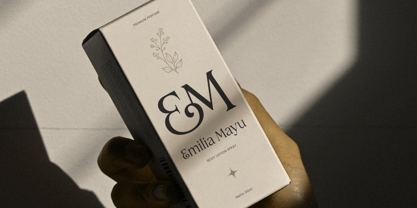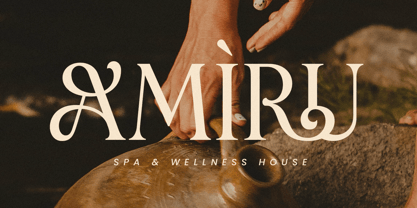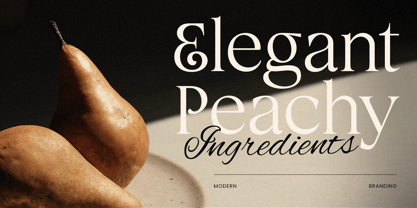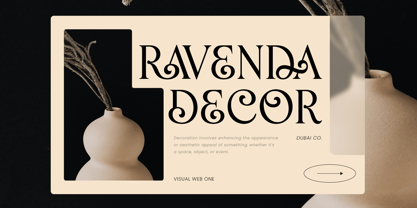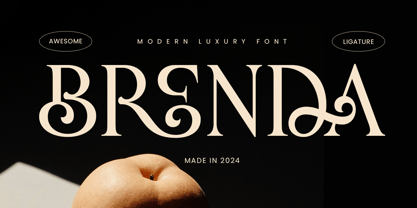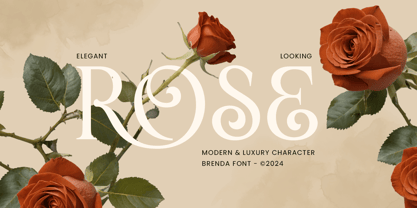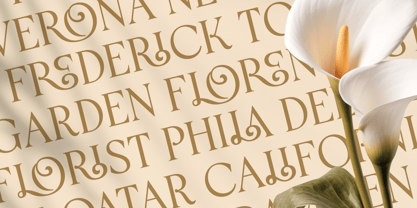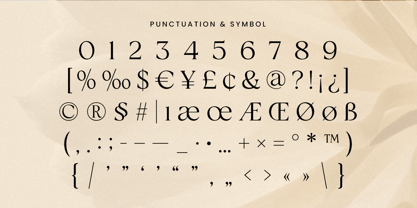
Brenda - Modern Luxury Font
Brenda is a modern luxury font crafted for those who seek elegance and sophistication in their design projects. Its clean lines and refined style make it an ideal choice for high-end branding, from fashion labels to luxury goods. Brenda brings a sense of exclusivity and class, elevating any design it graces with a polished, upscale feel.
Drawing inspiration from modern luxury aesthetics, Brenda’s balanced forms and subtle curves add a touch of timeless beauty. Whether used in logos, magazines, or upscale product packaging, this font seamlessly blends with contemporary and classic design elements, making it versatile for various projects that demand a premium look.
Unlock a world of refined branding possibilities with Brenda, a font that speaks to a luxurious and modern audience. Its stylish character ensures your message resonates with clarity and elegance, perfect for digital or print media.
Brenda Modern Luxury Font Features:
• Elegant and Sophisticated Character Set
• Unique Ligature & Alternative Characters
• Punctuation, Number, and Symbol
• Uppercase and Lowercase
• Opentype Features
Multilingual Characters available for:
Afrikaans, Albanian, Asu, Basque, Bemba, Bena, Breton, Chiga, Cornish, Dutch, English, Estonian, Filipino, Finnish, Friulian, Galician, German, Gusii, Indonesian, Irish, Italian, Kabuverdianu, Kalenjin, Kinyarwanda, Luo, Luxembourgish, Luyia, Machame, Makhuwa-Meetto, Makonde, Malagasy, Manx, Morisyen, North Ndebele, Nyankole, Oromo, Portuguese, Quechua, Romansh, Rombo, Rundi, Rwa, Samburu, Sango, Sangu, Scottish Gaelic, Sena, Shambala, Shona, Soga, Somali, Spanish, Swahili, Swedish, Swiss.